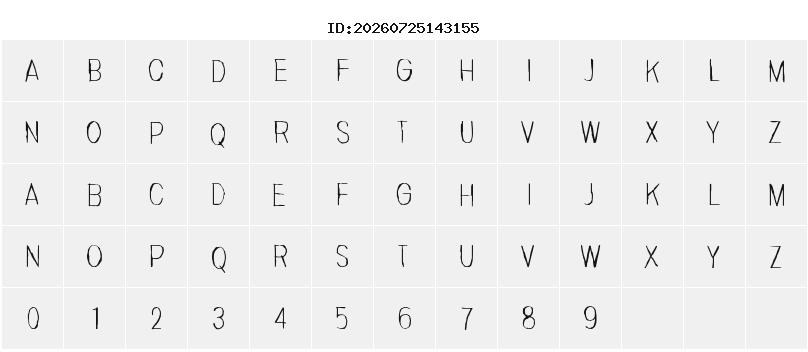
Invisiblerror Preview
• Font Name: Invisiblerror
• Full Font Name: Invisiblerror
• Version: Version 1.00 May 23, 2016, initial release
• Designer: junkohanhero
• Manufacturer: junkohanhero
About Invisiblerror.ttf
Invisiblerror.ttf is a modern, elegant sans-serif font designed for ultimate readability and visual harmony. Perfect for branding, headlines, web design, and print materials.